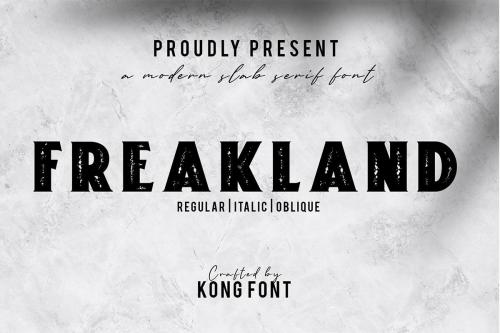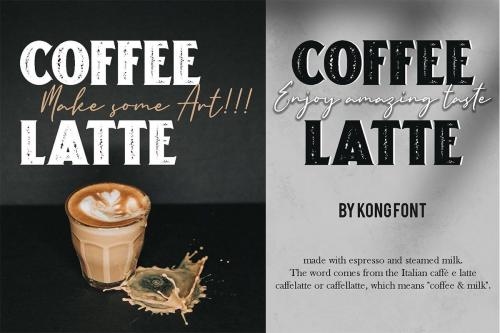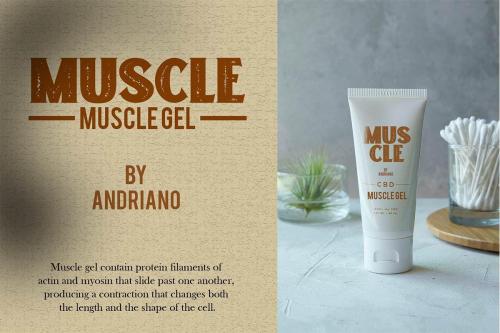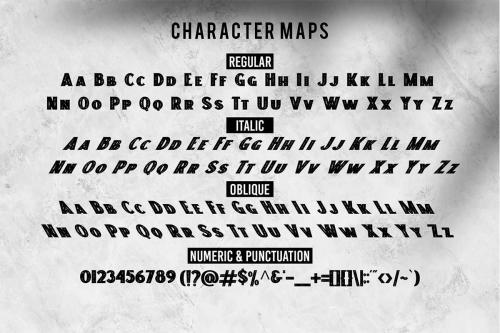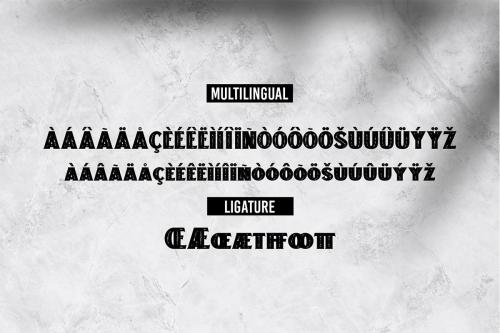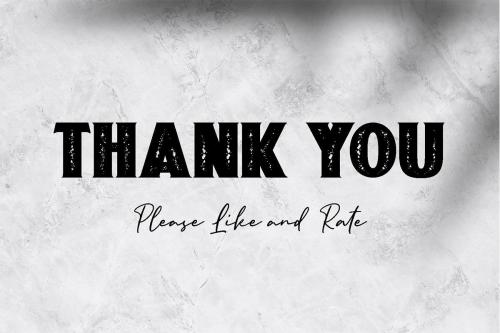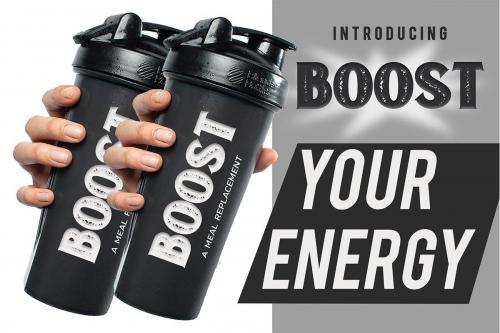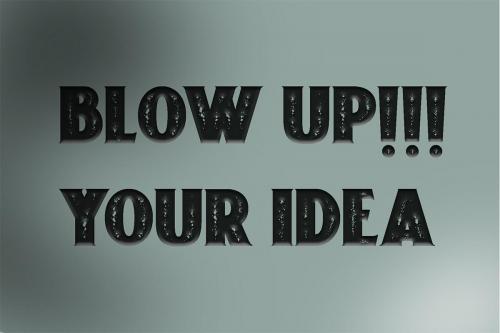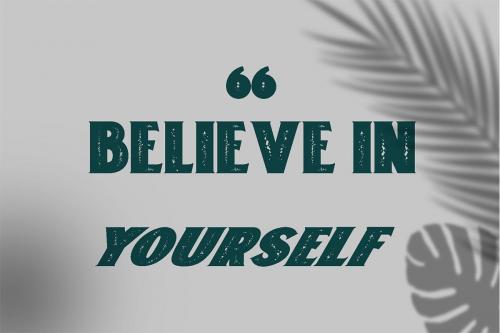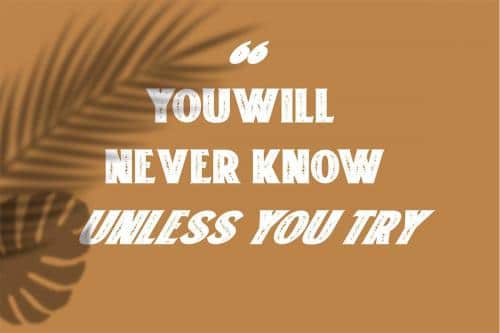
Freakland Display Font is a strong modern serif style with All Caps feel nice balanced. Its wide range of uppercase allow versatile design options and works perfectly for headlines, logos, posters, packaging, T-shirts and much more. This font is all caps and includes numbers and punctuation.
- Designer: Kong Font